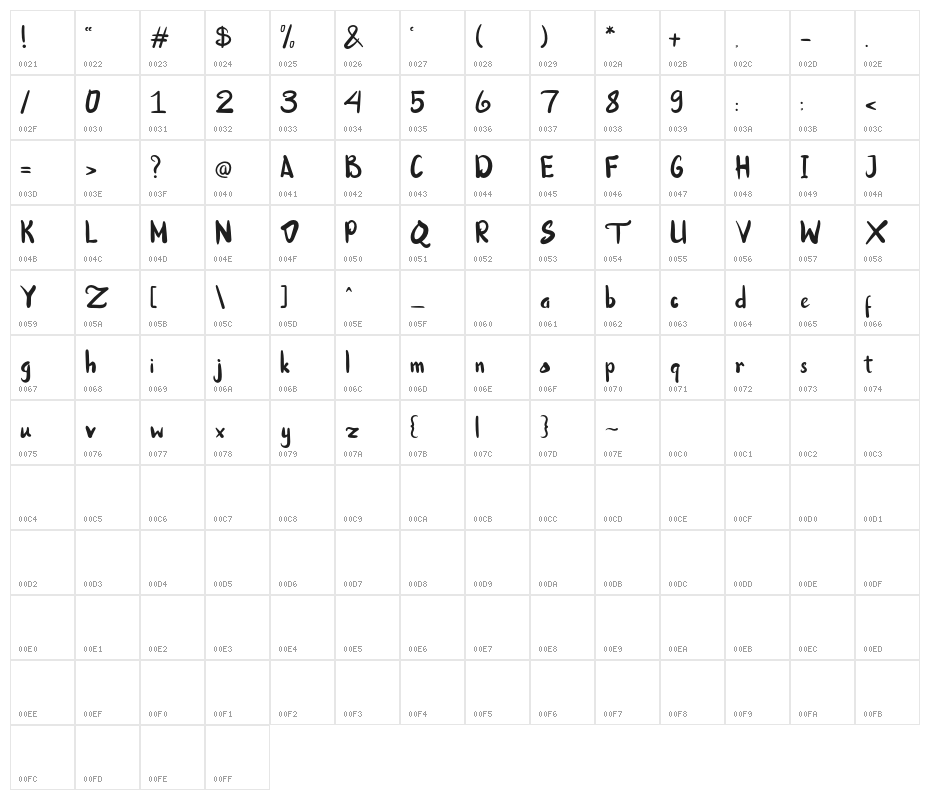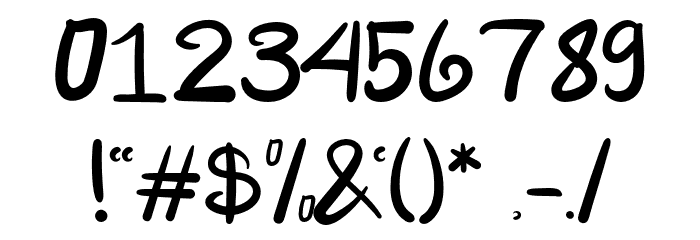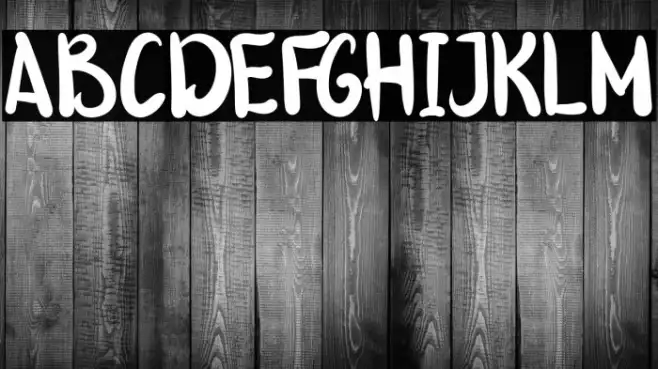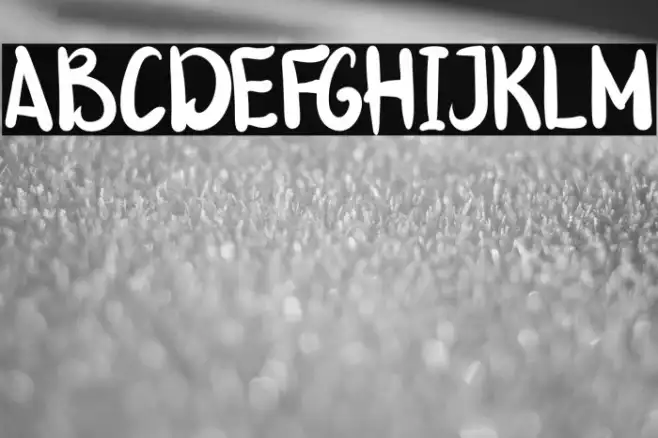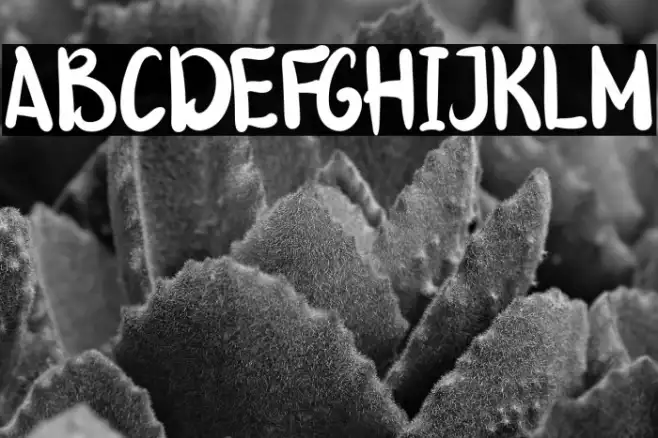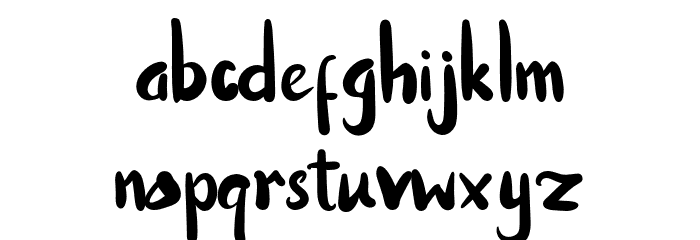
NickyMarvelo-Regular Font
NickyMarvelo-Regular Description
This font features a playful and energetic style with bold, rounded characters that convey a sense of fun and creativity. The uppercase letters are slightly larger and more pronounced, while the lowercase letters maintain a consistent flow with a casual, handwritten feel. The numerals are distinct and easy to read, matching the overall playful aesthetic. Special characters are included, adding versatility for various design needs. The font's informal and lively appearance makes it suitable for projects that require a touch of personality and warmth.
| Font Family | Nicky Marvelo |
| Proposed Projects | Ideal for children's books, playful branding, casual invitations, and creative posters. |